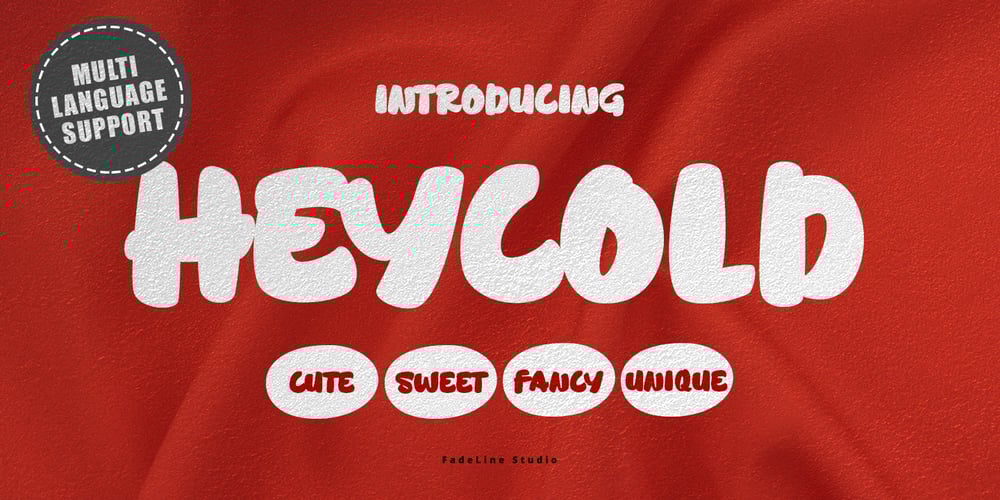
Heycold Font Family was designed by Juni Fadil Putra and published by FadeLine Studio. Heycold contains 1 styles and family package options. Heycold is a new beautiful and modern display font! This fun font has cute, round, unique and fancy font characters. Made specifically with attention to appearance, aiming to give happiness to everyone who uses it! With a style like this, Heycold will be suitable in use for comics, logos, branding projects, homeware designs, product packaging, mugs, quotes, posters, shopping bags, logo’s, t-shirts, book covers, name cards, invitation cards, greeting cards, and all your other lovely projects.